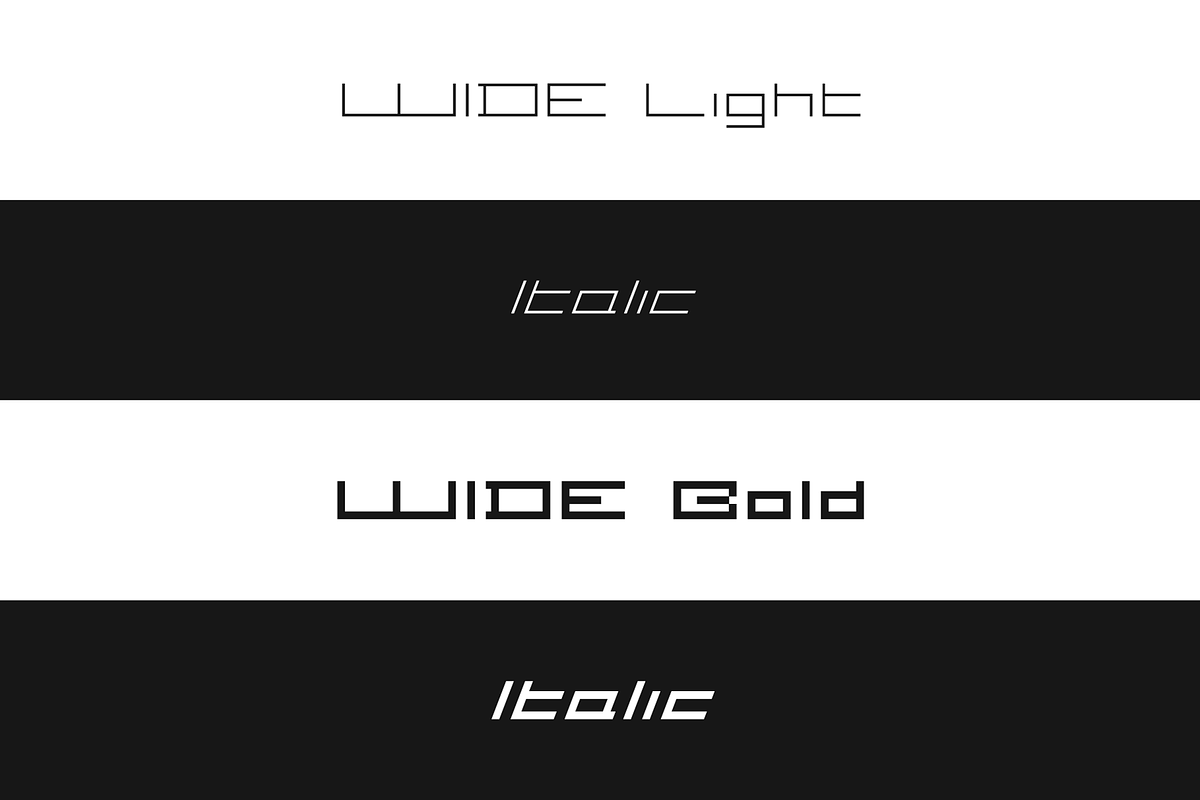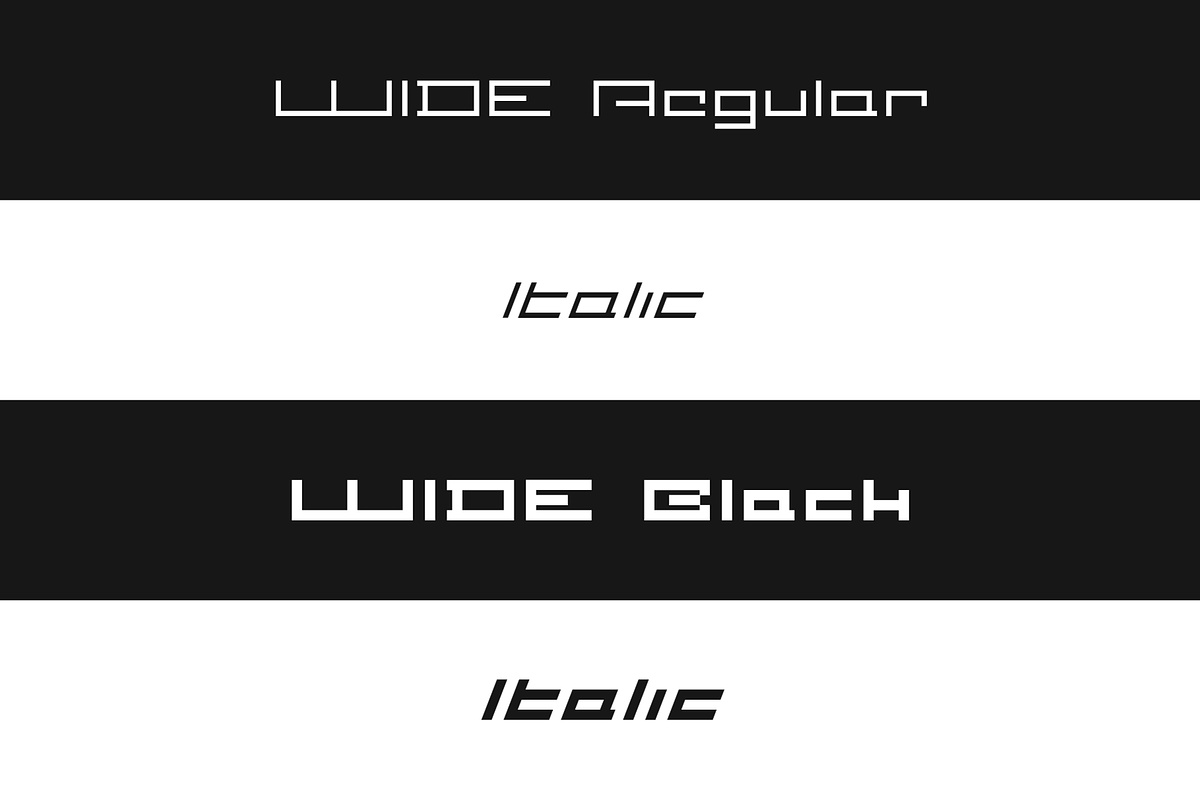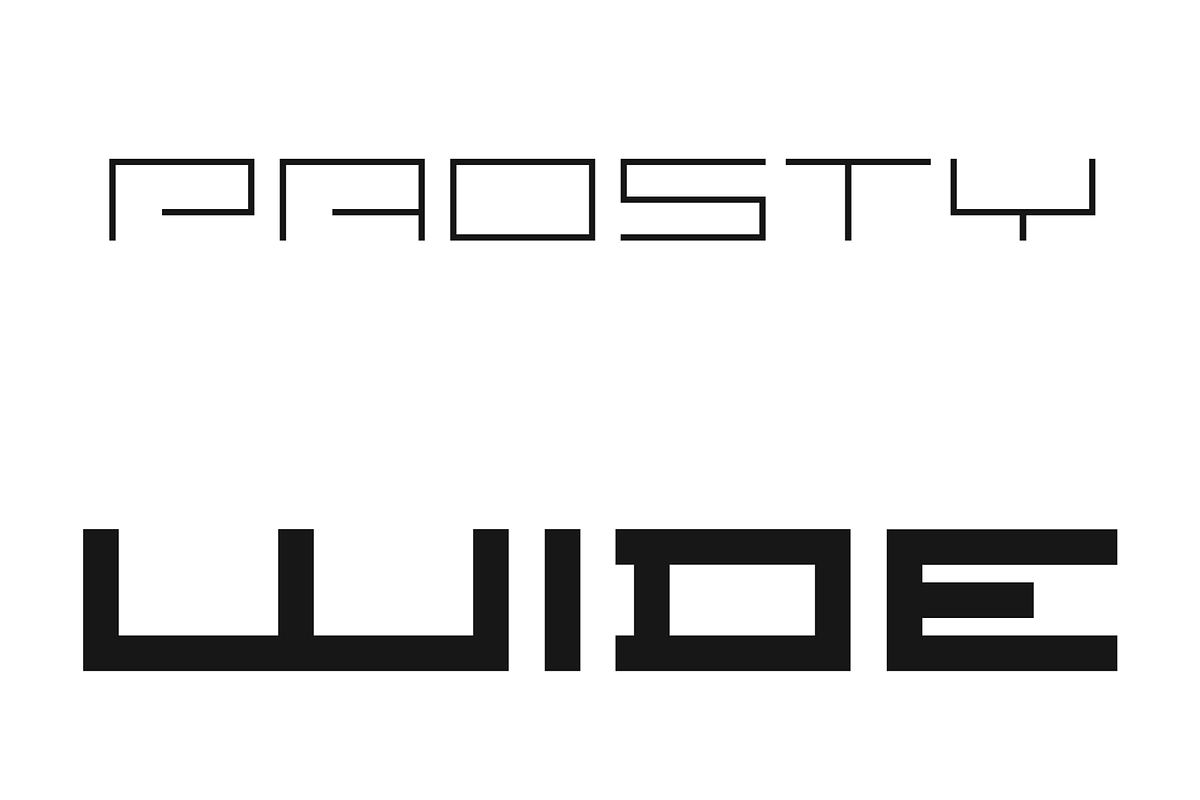
PROSTY Wide
PROSTY Wide is a geometric, minimalistic, display typeface.
It contains both uppercase and lowercase characters, which makes it useful for display, titling, and captions but also for composing short, intermediate, and longer texts, which is a very interesting and useful combination here. It was created carefully with details in mind.
PROSTY Wide contains a large number of characters as well as multilingual support.